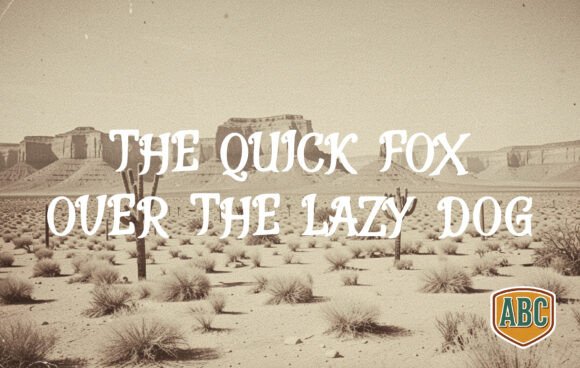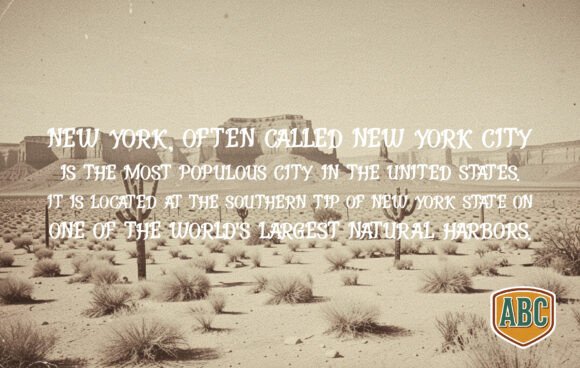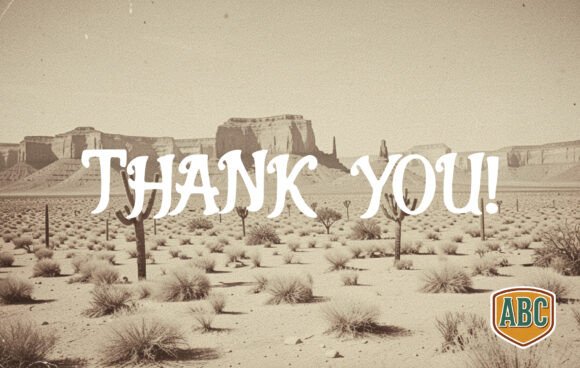
Introduction to Navajo White Font
Journey into a world of rugged beauty and vintage charm with Navajo White, a bold display font that echoes the soul of the high desert.
Featuring sweeping curves, distinctive flared terminals, and a sturdy, hand-hewn structure, this typeface blends retro Western aesthetics with a modern, artistic flair Whether you are designing for a boutique leather brand, crafting posters for an outdoor adventure, or building a nostalgic travel blog, Navajo White provides a timeless, adventurous voice.
Key Features of Navajo White Font